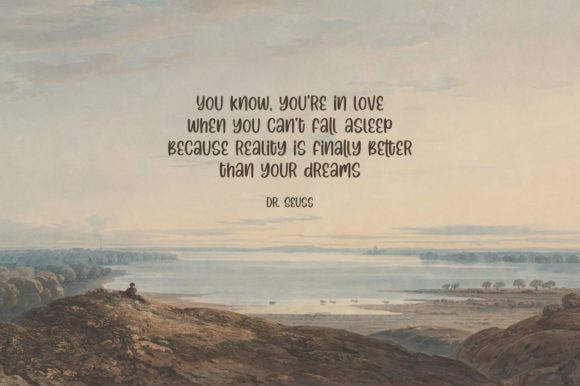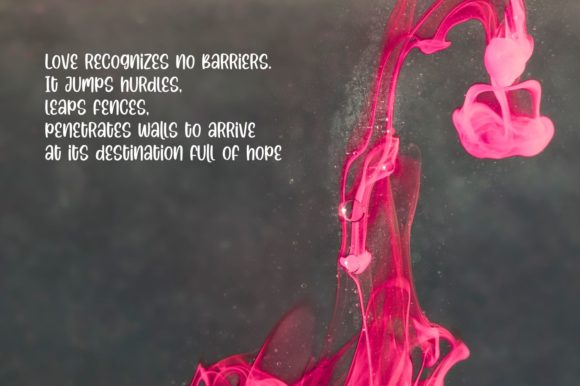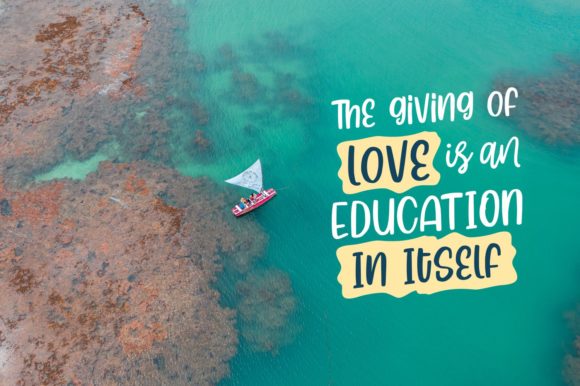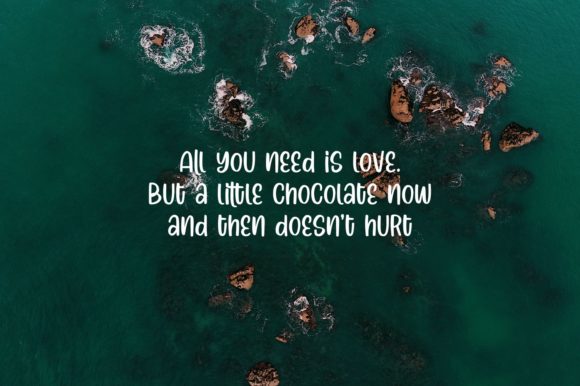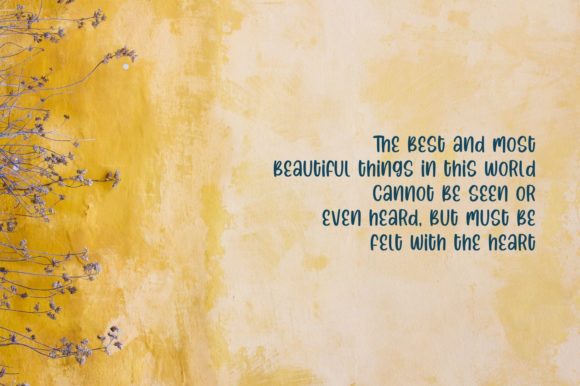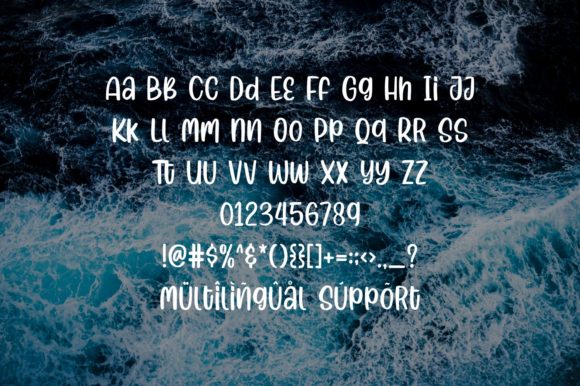
The Birth of a Masterpiece: Bestari Font
Have you ever found yourself scrolling through your design portfolio, reminiscing about a project that truly came alive with the perfect font? For many of us, that moment is what drives us to create something truly special. It’s the spark that sets our imagination ablaze, and the thrill of bringing a concept to life. Today, we’re excited to introduce you to the Bestari Font, a thick lettered and authentic display font that’s about to become your new go-to for creating spectacular designs.
With its incredibly versatile style, the Bestari Font is the perfect addition to any designer’s toolkit. Whether you’re working on a branding project, a poster, or a social media campaign, this font is sure to elevate your design to the next level. Its unique character and bold lines make it a valuable asset for designers looking to add some personality to their work.
Bestari Font Key Features
- Font Family: Bestari Font is a modern sans-serif font family, designed for use in digital media.
- Character Set: Supports a wide range of languages, including Latin, Cyrillic, and Devanagari scripts, making it suitable for global audiences.
- Resolution: Optimized for high-resolution displays, ensuring crisp and clear text rendering on devices with high pixel densities.
- Unique Characteristics: Bestari Font features a unique blend of modernity and legibility, making it an excellent choice for digital products, websites, and mobile applications.
Bestari Font Review
Overall, I have mixed feelings about the Bestari font. On one hand, it has some great qualities that make it a good choice for certain projects.
- Unique and modern design: The Bestari font has a distinctive look that sets it apart from more common fonts.
- High x-height: This makes it easier to read, especially for longer blocks of text.
- Good for body text: The font is well-suited for large blocks of text, such as in articles or blog posts.
- Difficult to read in small sizes: The Bestari font can become difficult to read when used in smaller font sizes.
- Lack of italic and bold options: The font only comes in regular and bold styles, which can limit its versatility.
- Not suitable for headings: The font is better suited for body text and may not be the best choice for headings or titles.
The Bestari font is a solid choice for projects where you want a unique and modern look. However, it may not be the best choice for projects that require a lot of flexibility or versatility in font styles.
Tips for Getting the Most Out of Bestari Font
Bestari Font is perfect for creating modern and elegant designs. Here are some tips to get the most out of it:
- Use it in combination with bold or italic styles to create emphasis.
- Use it in headings and titles to create a clear hierarchy of information.
Bestari Font is perfect for:
- Creating modern and elegant business cards and resumes.
- Designing stylish and sophisticated marketing materials.
- Creating educational materials and presentations.
Alternatives to Bestari Font for Designers
Open Sans is a modern sans-serif font suitable for a wide range of applications, including digital products, websites, and print materials. It is highly legible and versatile, making it an excellent choice for body text and headings.
Comparison to Bestari Font: Open Sans is more legible and versatile than Bestari Font, making it a better choice for digital products and websites. However, Bestari Font has a more unique and modern aesthetic that may be preferred for specific design projects.
Lato is a sans-serif font designed to be highly legible and suitable for digital applications. It has a clean and modern design, making it an excellent choice for websites, mobile apps, and digital products.
Comparison to Bestari Font: Lato is more minimalist and clean compared to Bestari Font, which has a more unique and modern aesthetic. Lato is a better choice for projects that require a clean and simple design.